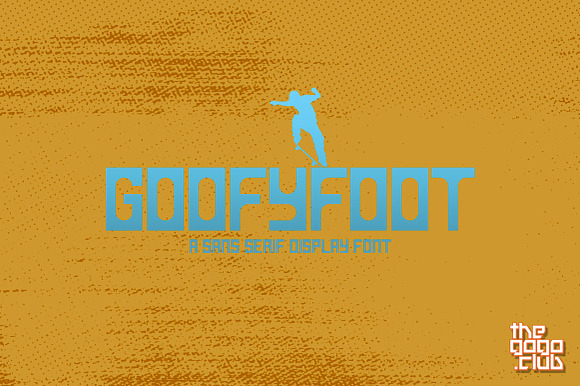
Goofyfoot A Retro Surfskate Font
GoofyFoot was designed with leisure in mind. Perfect for tees, craft beer branding or an event poster. Textures & filters work great with this font. It's design to grab the eye and make your next design project stand out.